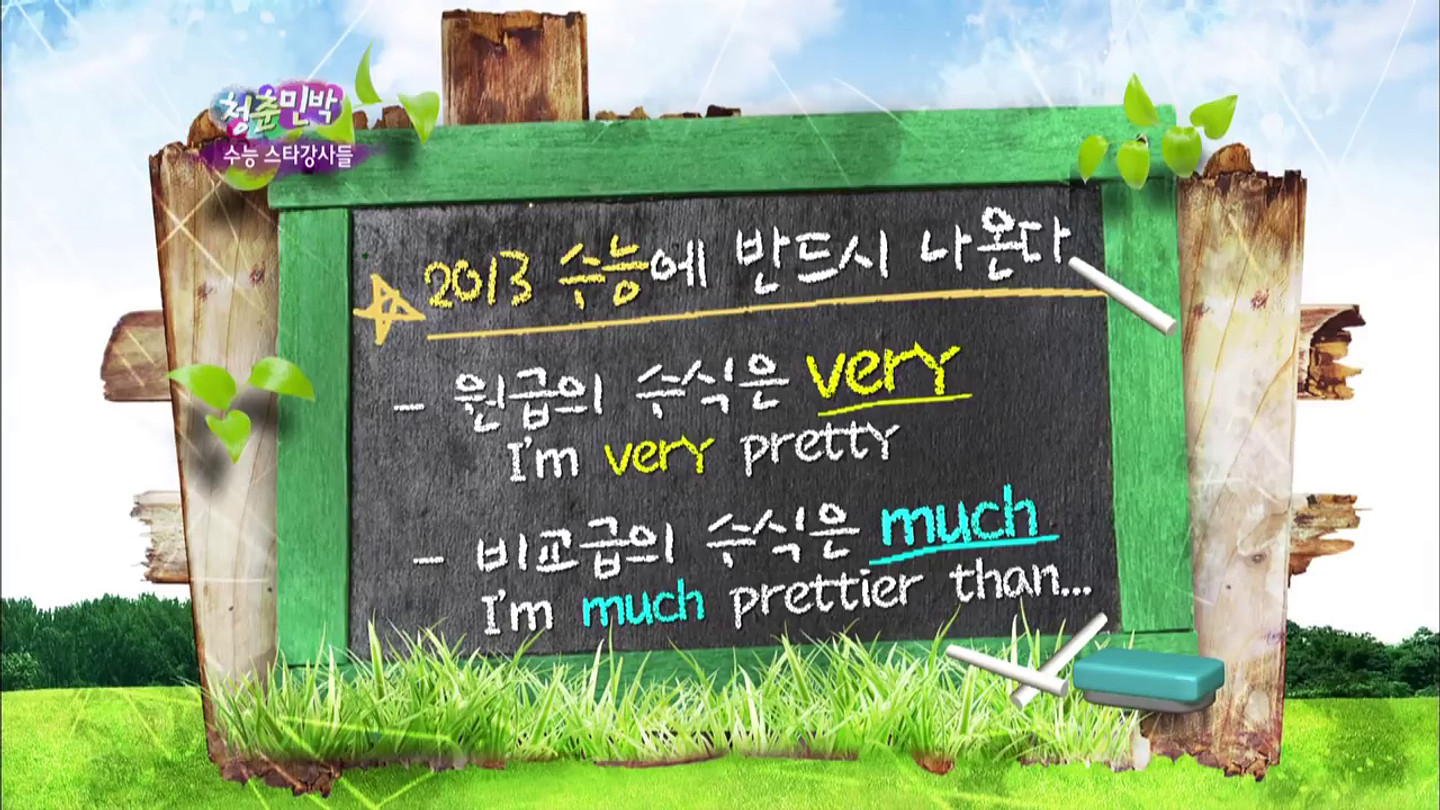
This is from "Invincible Youth 2" show, the font is like a chalkboard but can't find the exact name for it, same font used also in Star Golden Bell before. To added, the font that was similar for these was: YD Spring or 봄 in Korean, if y'all ever know the name please let me know. Thanks y'all~